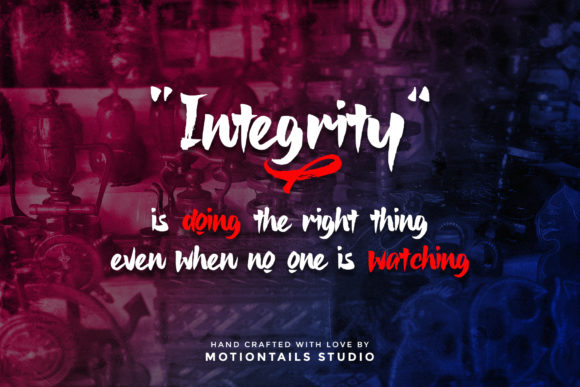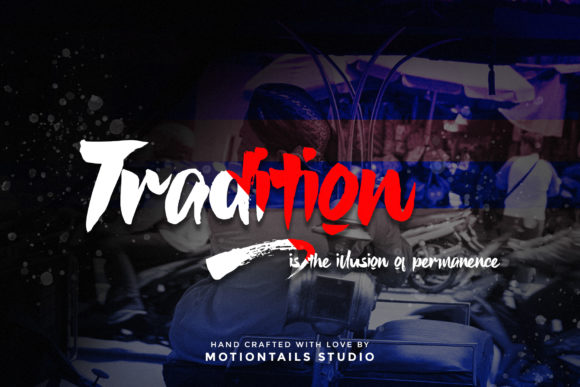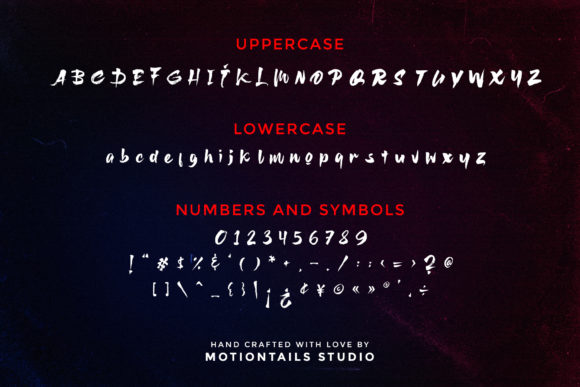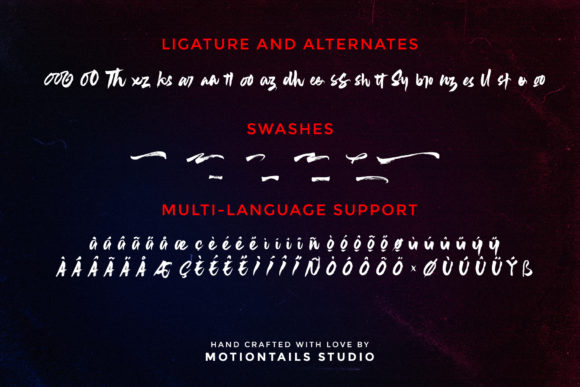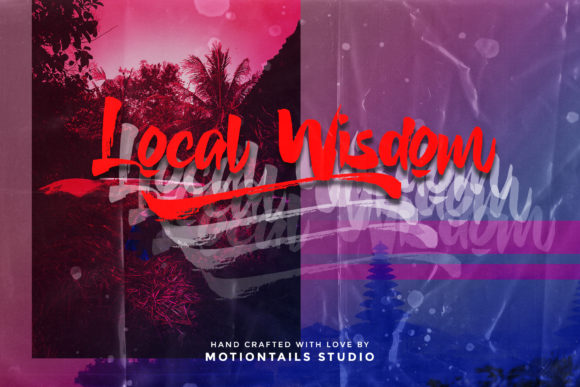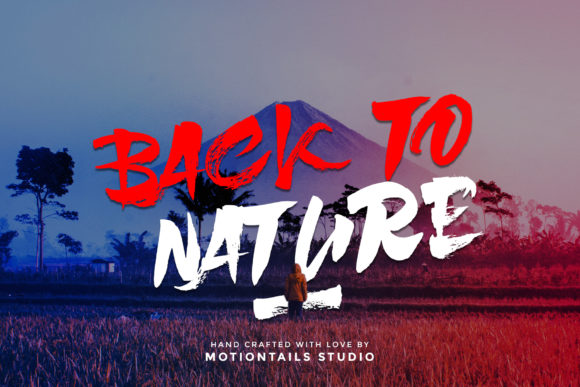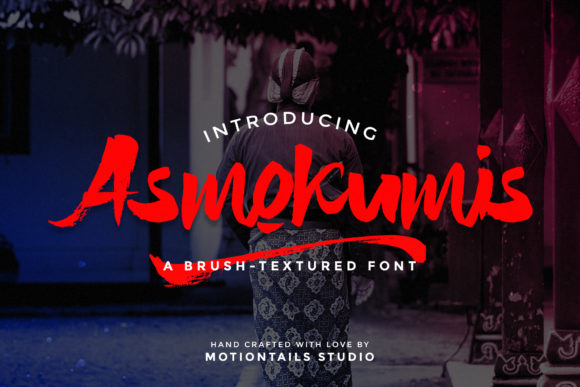
Discover the Charm of Asmokumis Font: A Handcrafted Display Font for Creative Projects
Are you on the hunt for a display font that exudes a sense of casual charm and versatility? Look no further than Asmokumis, a beautifully handcrafted font designed to become a true favorite among designers and crafters. With its down-to-earth feel and exceptional readability, Asmokumis is the perfect choice for a wide range of creative projects.
The Story Behind Asmokumis
Asmokumis is more than just a font – it’s a carefully crafted tool designed to help you create stunning visual content. Its creator(s) have poured their heart and soul into perfecting every detail, from the letterforms to the spacing, to ensure that Asmokumis is not only aesthetically pleasing but also highly functional.
What Makes Asmokumis Stand Out?
- Handcrafted with love: Asmokumis is a font that’s been carefully handcrafted to ensure that every letter, every curve, and every line is perfect.
- Casual charm: This font has a unique, down-to-earth feel that makes it perfect for creative projects that require a personal touch.
- Exceptional readability: Asmokumis is designed to be easy to read, even in smaller sizes, making it a great choice for body text or captions.
- Versatility: Whether you’re working on a busy background or a standalone headline, Asmokumis is sure to shine.
Using Asmokumis in Your Creative Projects
Asmokumis is an incredibly versatile font that can be used in a wide range of creative projects, including:
- Branding and logos: Asmokumis is perfect for creating unique and memorable logos that reflect your brand’s personality.
- Headlines and titles: Use Asmokumis to create eye-catching headlines and titles that grab attention.
- Posters and flyers: This font is ideal for creating stunning posters and flyers that showcase your message.
- Digital content: Asmokumis can be used to create engaging digital content, such as social media graphics, blog posts, and more.
Tips for Getting the Most Out of Asmokumis
To get the most out of Asmokumis, here are a few tips to keep in mind:
- Experiment with different sizes: Asmokumis looks great in a variety of sizes, so don’t be afraid to experiment to find the perfect fit for your project.
- Play with colors: This font looks great in a range of colors, so try pairing it with different hues to create a unique look.
- Mix and match: Asmokumis can be paired with a range of other fonts to create a unique and interesting look.
Asmokumis is a truly exceptional display font that’s sure to become a favorite among designers and crafters. With its casual charm, exceptional readability, and versatility, it’s the perfect choice for a wide range of creative projects. Whether you’re working on a branding project, a poster, or digital content, Asmokumis is sure to shine. So why not give it a try and see the difference it can make in your work?
In conclusion, Asmokumis is a great display font that is carefully handcrafted to become a true favorite. Its casual charm makes it appear wonderfully down-to-earth, readable and, ultimately, incredibly versatile. Asmokumis will look outstanding in any context, whether it’s being used on busy backgrounds or as a standalone headline!